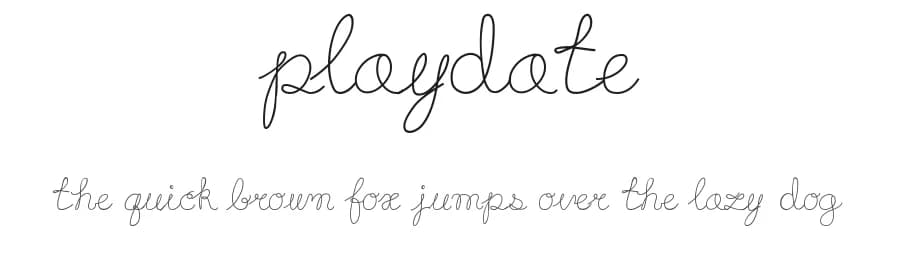
About Playdate Font
| Designer | Heather T. (Heather Taylor) |
Playdate Font is a script font that shines as a display or heading face. Pair it with a clean sans-serif or serif font for body text β the contrast creates a clear hierarchy while the two styles stay balanced and easy to read.
Playdate Font
by Heather T.